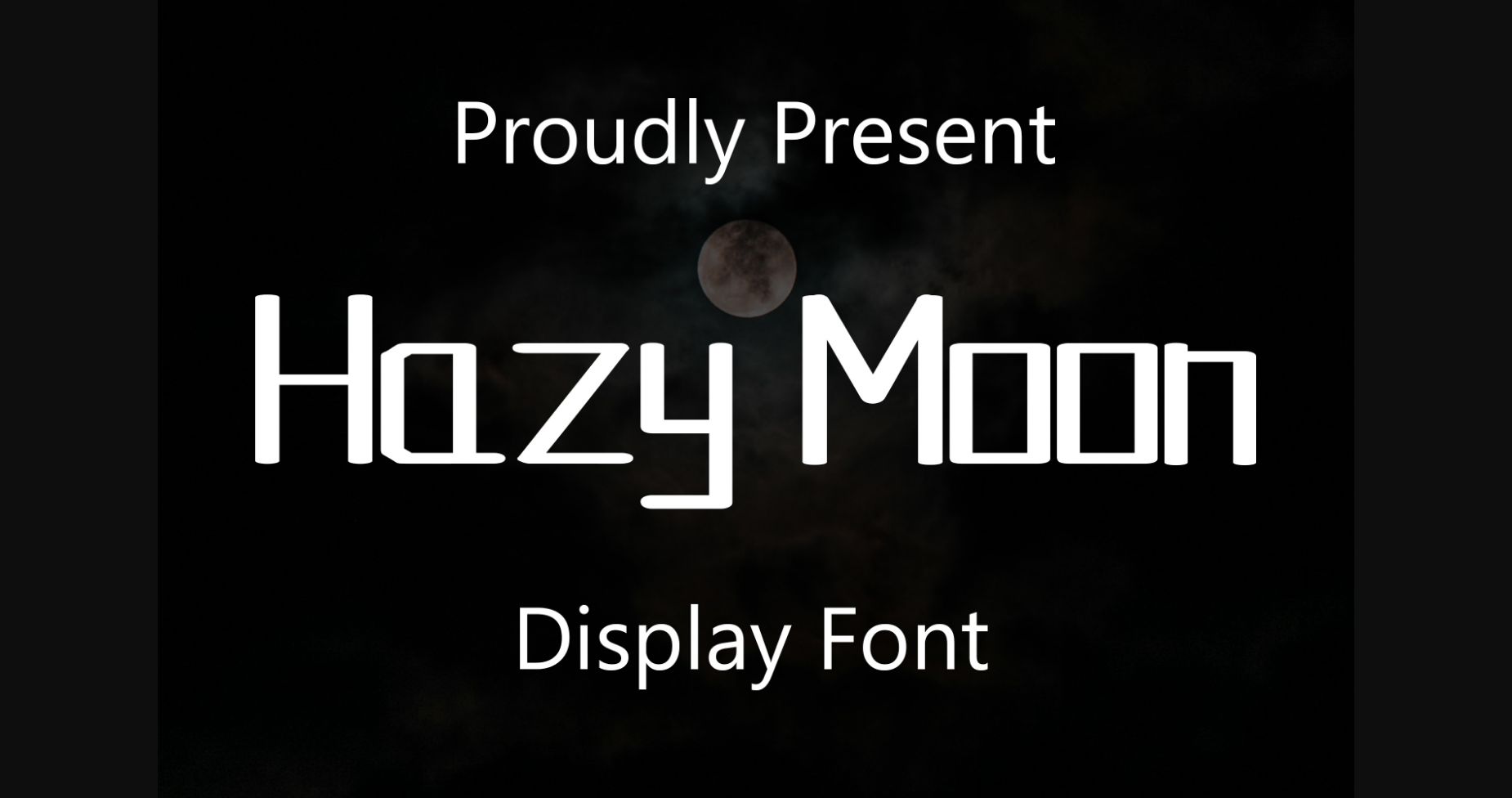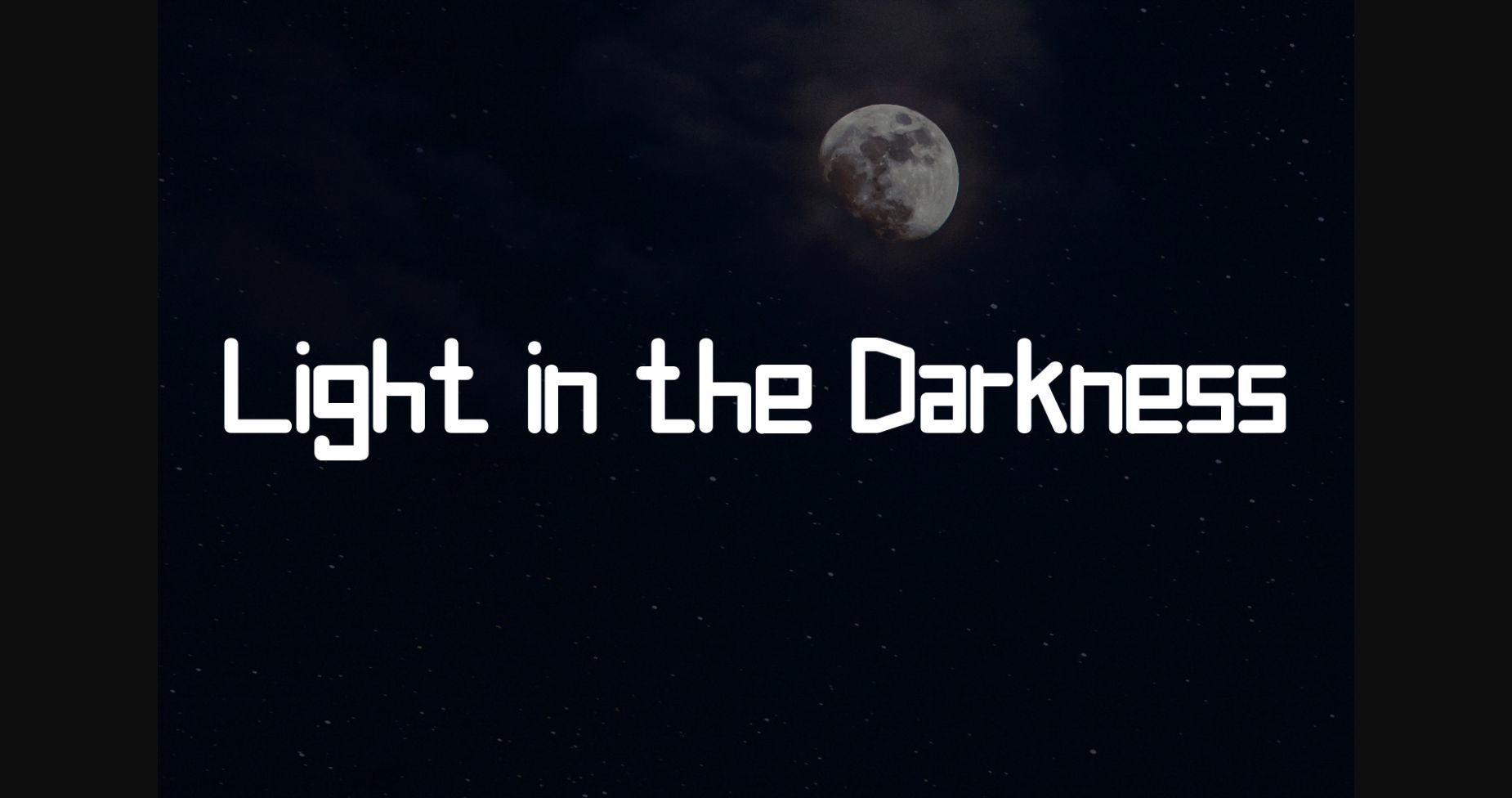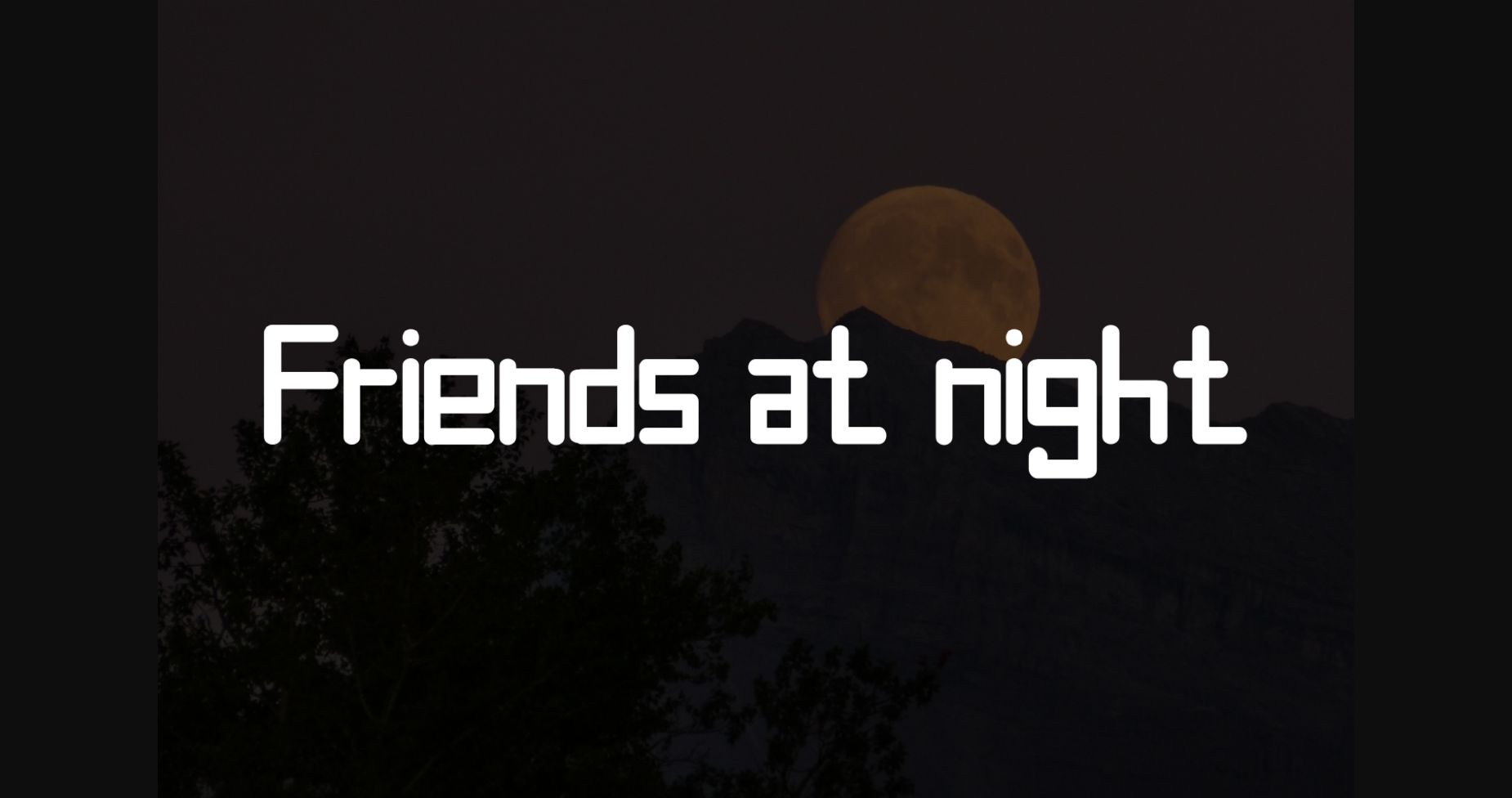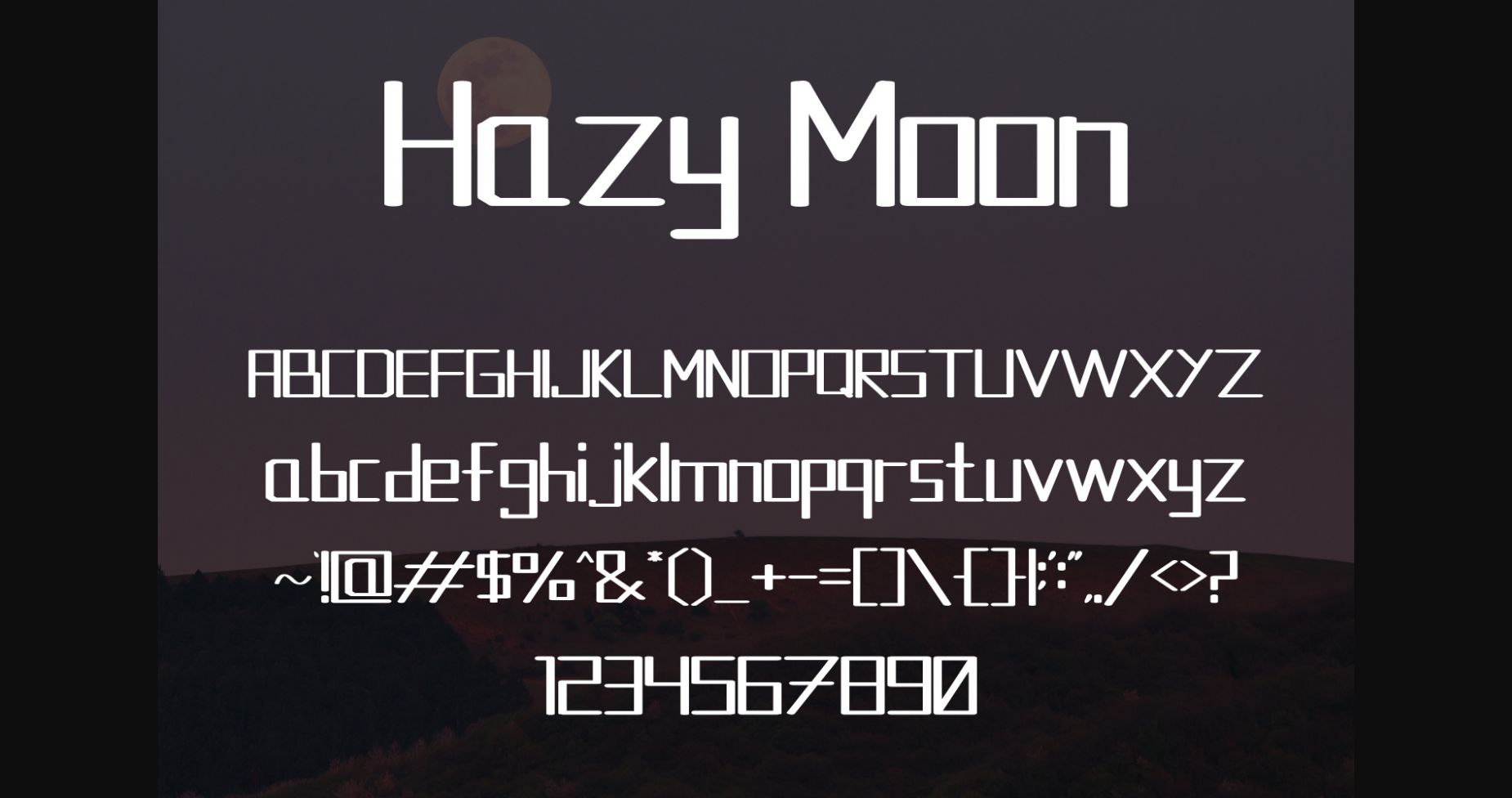
Hazy Moon Font
About Hazy Moon Font
Hazy Moon is an amazing sans serif font. Featuring robotic-style characters and somewhat symmetrical letters, this typeface is perfect for any futuristic designs, books, science magazines, sci-fi movie titles, and other projects alike!